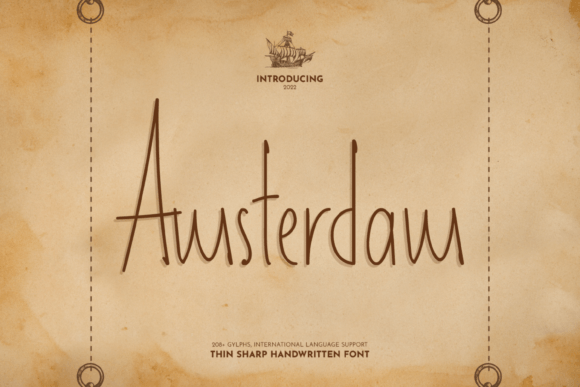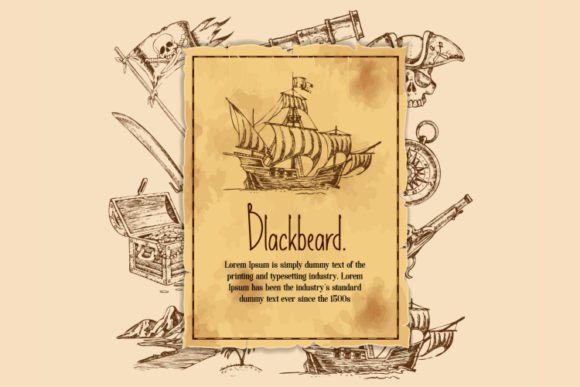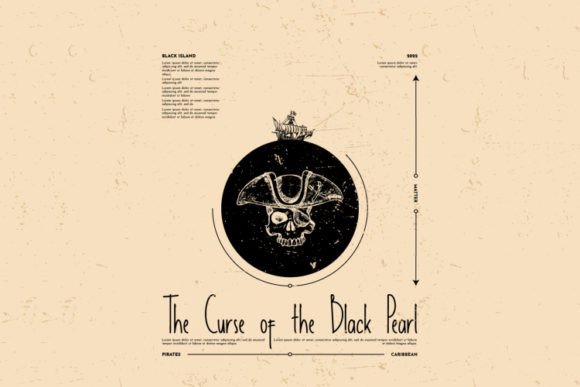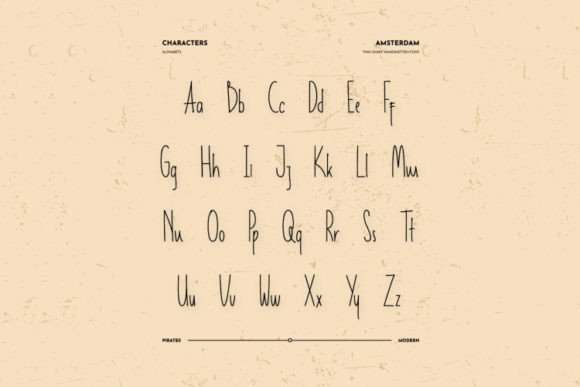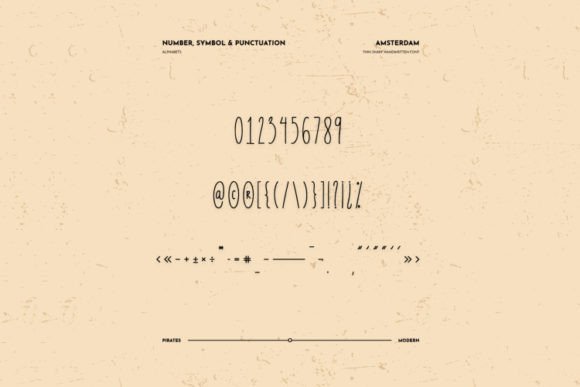
“Amsterdam” is a thin and sharp handwritten font that adds a touch of sophistication to your designs. With its slender and precise strokes, this font is versatile and well-suited for various applications, including crafting, digital designing, presentations, and greeting card making.
The thin and sharp characteristics of “Amsterdam” contribute to its modern and elegant appearance. It’s designed to bring a level of refinement to your typography, making it a perfect choice for projects where a sleek and sophisticated aesthetic is desired.
Whether you’re creating digital designs, crafting projects, or personalized greeting cards, “Amsterdam” adapts seamlessly to different contexts. The sharp handwritten style adds a unique and contemporary flair to your text, making it visually appealing and distinctive.
The versatility of “Amsterdam” allows it to shine in various design applications, adding a touch of sophistication to your creative endeavors. Its slender and precise letterforms create a clean and stylish look that enhances the overall visual impact.
In summary, “Amsterdam” is a font that combines thin and sharp qualities to deliver a modern and sophisticated handwritten style. Utilize its sleek appearance in crafting, digital design, presentations, and more, and notice how it adds a level of elegance to your projects.